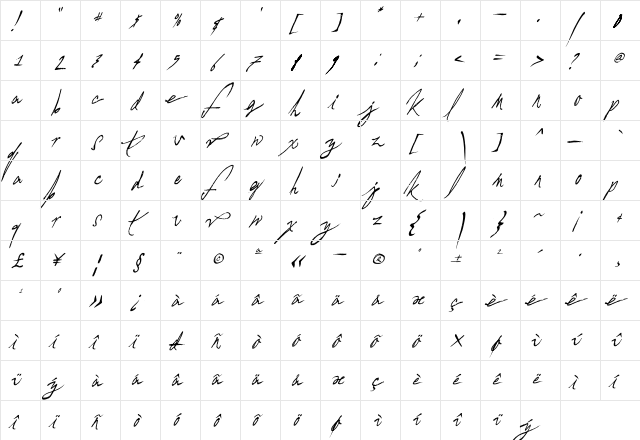
A Glitch In Time Regular
Design Context for A Glitch In Time Typeface
A Glitch In Time is a composed and adaptable typeface that performs quietly and consistently across a wide range of design contexts.